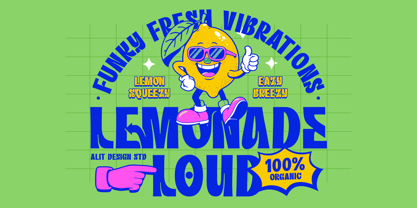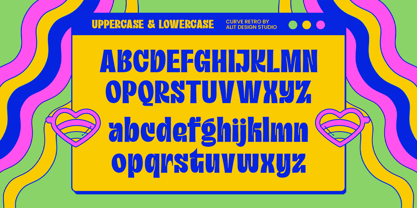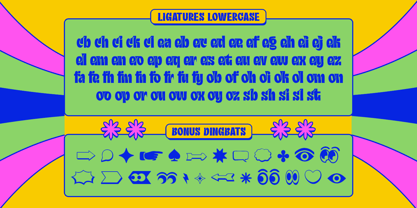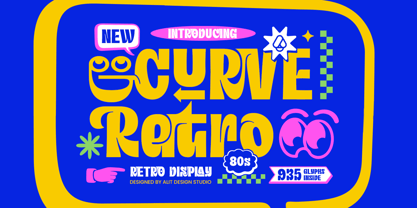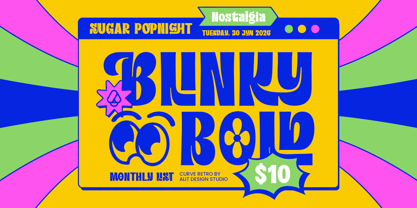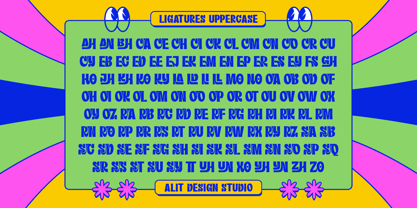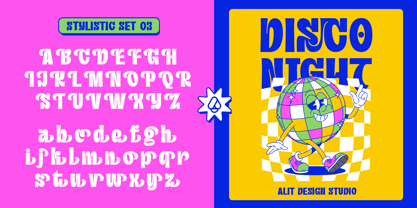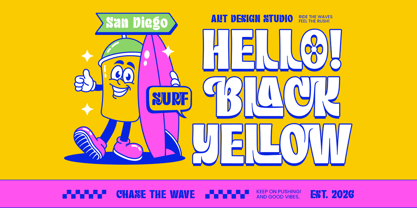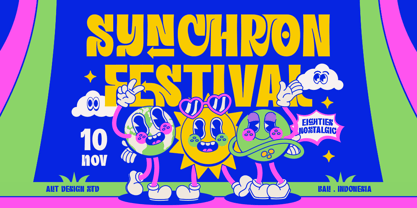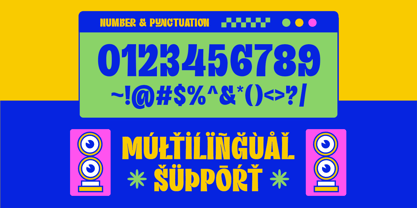
Curve Retro
La famille de polices Curve Retro a été conçue par Alit Suarnegara et publiée par Alit Design. Curve Retro contient 1 styles. En savoir plus sur cette famille
Curve Retro – The Funky & Groovy Display Font (935 Glyphs + Bonus Dingbats) Get ready to turn up the volume! 📼✨ Introducing Curve Retro, a bold and playful display font that brings the electric energy of the 80s and 90s straight into your design toolkit. With its chubby curves, funky rhythm, and psychedelic vibes, this font is a time machine to an era of bright colors, disco nights, and cassette tapes. Designed for those who aren't afraid to stand out, Curve Retro isn't just a typeface—it’s a complete design system. Whether you are creating a music festival poster, a streetwear brand logo, or a groovy social media campaign, this font packs the punch you need. Why You’ll Love Curve Retro: Massive Glyph Library: Loaded with 935 glyphs, giving you endless possibilities to mix and match. Crazy Customization: Features Stylistic Sets (SS01-SS06) that completely transform the look of the letters—from boxy retro shapes to swirl-ended characters. Seamless Ligatures: Includes an extensive collection of Ligatures for both Uppercase and Lowercase, ensuring your typography flows naturally and looks custom-made. Bonus Dingbats: Comes with a set of retro-pop vectors (stars, funky eyes, clouds, arrows) to add that perfect finishing touch to your layout. Global Ready: Full Multilingual Support covering a wide range of languages. Perfect For: Retro & Vintage Logos Music Festival Branding & Album Covers Streetwear & T-Shirt Design Stickers & Merchandise Social Media Graphics (Instagram, TikTok) Packaging Design with a Pop Art twist What’s Included: Standard Glyphs & Punctuation Stylistic Alternates & Ligatures Multilingual Support Bonus: Retro Dingbats (integrated into the font) Let your designs dance with Curve Retro! 🕺💃 Don't just type it, express it. Grab Curve Retro today and bring the funk